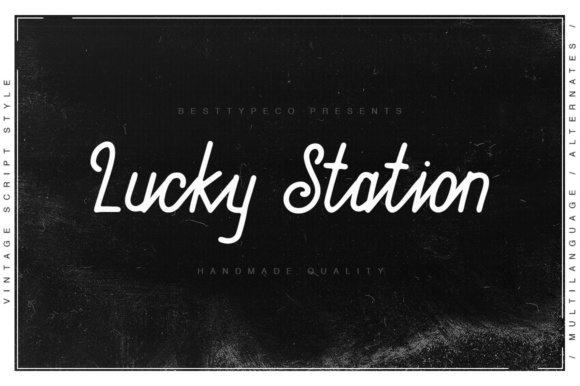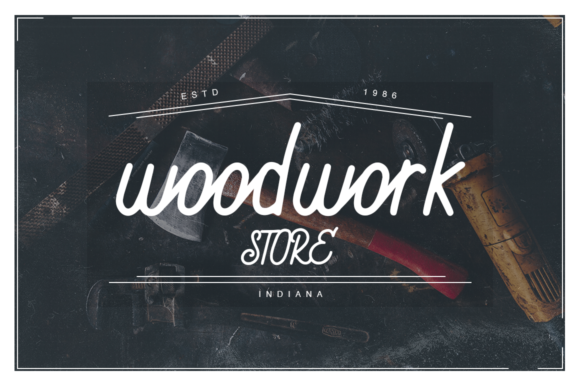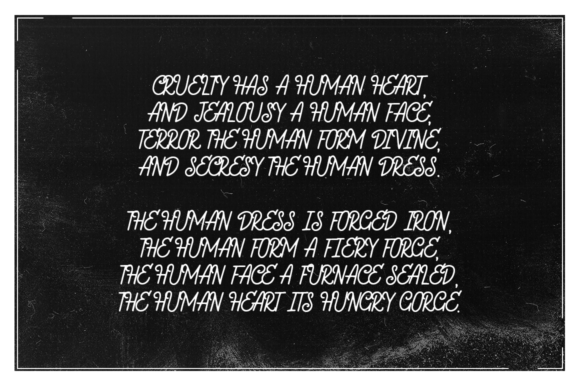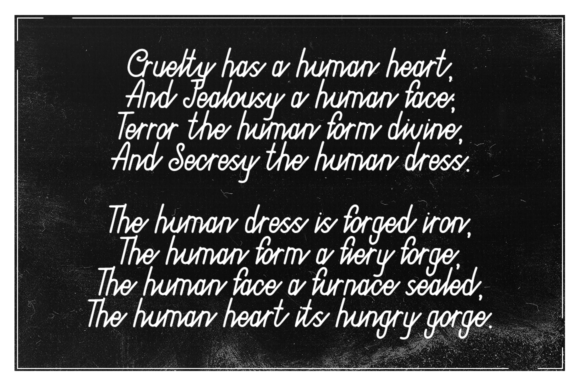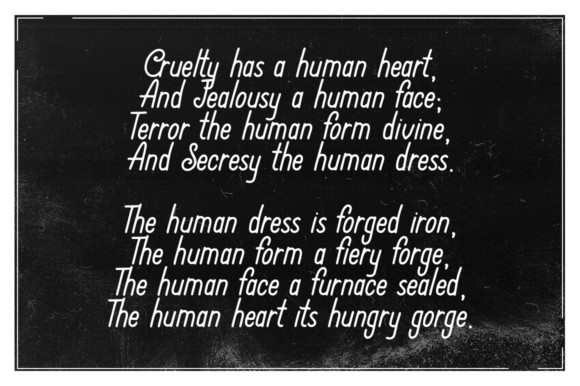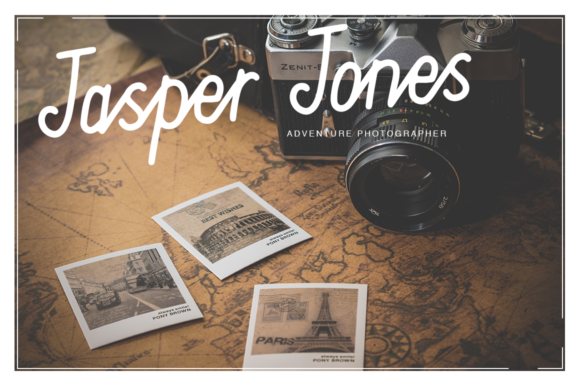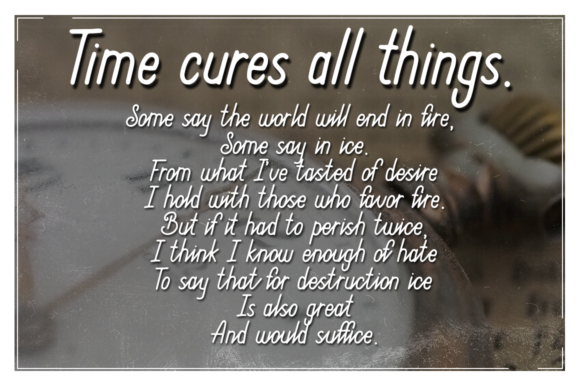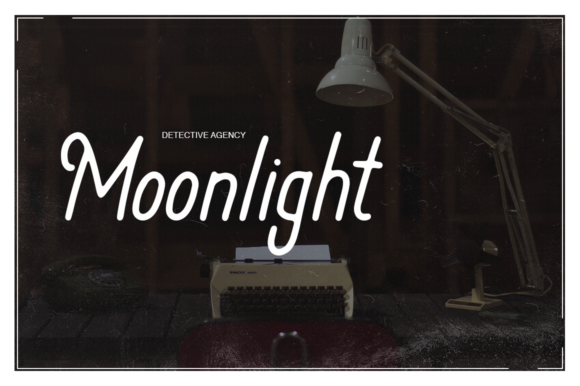
Lucky Station Font
About Lucky Station Font
The Lucky Station is a fresh, handmade calligraphy font. It’s suitable for greeting cards, branding materials, business cards, and much more!